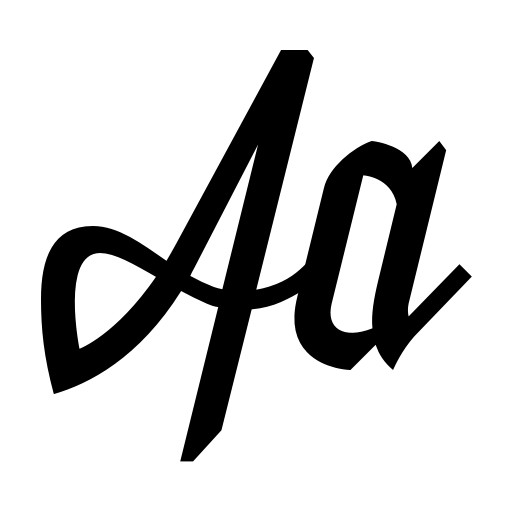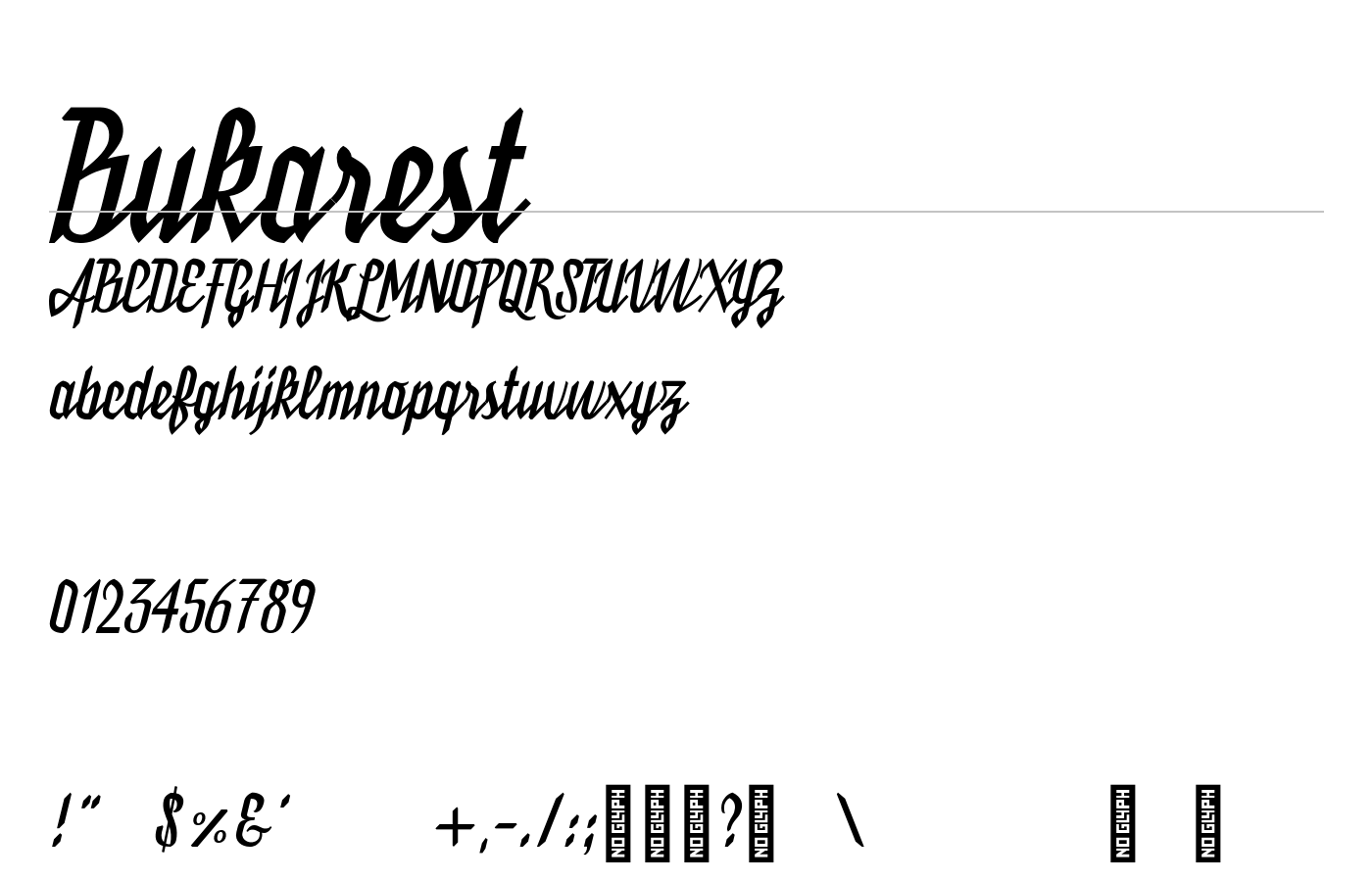
Bukarest is a dynamic script font with a vintage flair, featuring narrow, sharply angled letterforms that convey energy and personality. Its slender strokes and slightly irregular shapes create a hand-brushed effect, making it ideal for creative projects aiming for a bold, expressive look. This font works wonderfully in logos, posters, and other display uses where a touch of retro charm and distinctiveness is desired.
Bukarest Font